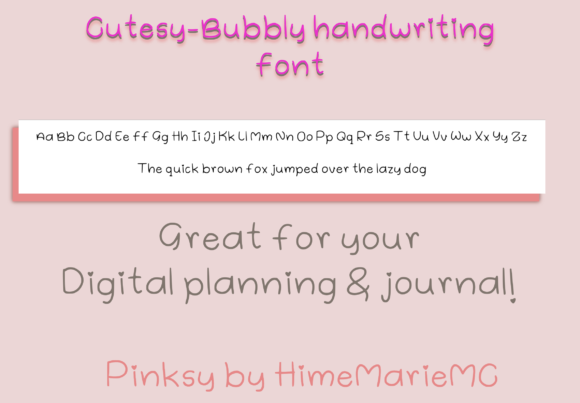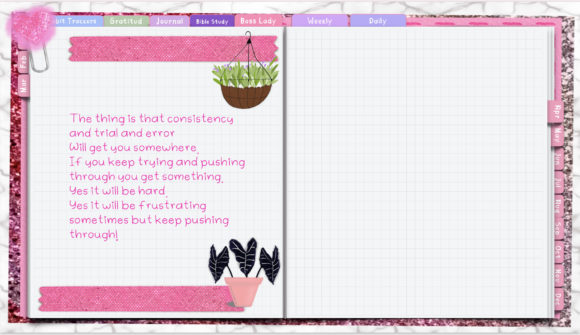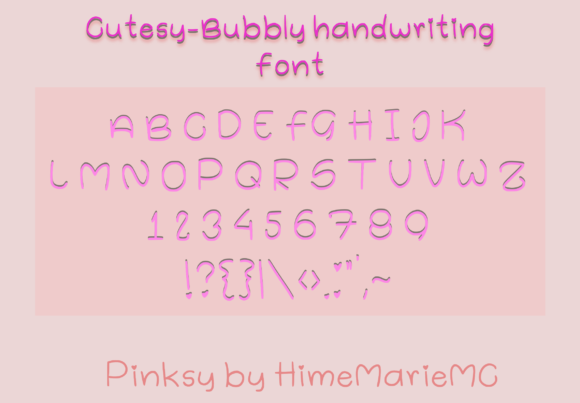
Cutesy Bubbly Font: Add a Touch of Whimsy to Your Designs
Are you looking for a font that can add a dash of fun and playfulness to your designs? Look no further than Cutesy Bubbly, a delightful handwritten font that’s perfect for creating eye-catching posters, flyers, and prints. With its sweet and stylish vibe, this font is sure to capture the attention of your audience and leave a lasting impression.
What is Cutesy Bubbly Font?
Cutesy Bubbly is a fun and modern handwritten font that’s designed to bring a touch of whimsy to your designs. Its unique and elegant style makes it perfect for a wide range of projects, from creative crafts to digital designs. Whether you’re a designer, crafter, or DIY enthusiast, this font is sure to inspire your creativity and help you create stunning visuals.
Key Features of Cutesy Bubbly Font
- Handwritten style: Cutesy Bubbly has a beautiful handwritten style that’s perfect for creating personal and unique designs.
- Sweet and stylish vibe: This font has a sweet and stylish vibe that’s sure to capture the attention of your audience.
- Perfect for posters and flyers: Cutesy Bubbly is ideal for creating eye-catching posters, flyers, and prints that will stand out from the crowd.
- Endless possibilities: With Cutesy Bubbly, the possibilities are endless. Use it for your designs and explore its many uses.
Why Use Cutesy Bubbly Font?
There are many reasons why you should consider using Cutesy Bubbly font in your designs. Here are just a few:
- Add a touch of whimsy: Cutesy Bubbly is the perfect font for adding a touch of whimsy and playfulness to your designs.
- Stand out from the crowd: With its unique and elegant style, Cutesy Bubbly is sure to help your designs stand out from the crowd.
- Perfect for creative projects: This font is ideal for creative projects, such as crafting, DIY, and handmade designs.
Design Ideas Using Cutesy Bubbly Font
Cutesy Bubbly font is perfect for a wide range of design projects. Here are some ideas to get you started:
- Posters: Create eye-catching posters for events, promotions, or advertising.
- Flyers: Design flyers for parties, events, or business promotions.
- Prints: Create beautiful prints for art, crafts, or DIY projects.
- Crafting projects: Use Cutesy Bubbly font for crafting projects, such as card making, scrapbooking, or journaling.
| Font Name | Cutesy Bubbly Font |
| Author | Pinksy by HimeMarieMC |
Cutesy Bubbly font is a fun and modern handwritten font that’s perfect for adding a touch of whimsy to your designs. With its sweet and stylish vibe, this font is sure to capture the attention of your audience and leave a lasting impression. Whether you’re a designer, crafter, or DIY enthusiast, Cutesy Bubbly font is a great addition to your font collection.
- What is Cutesy Bubbly font?
- Cutesy Bubbly font is a fun and modern handwritten font that’s perfect for adding a touch of whimsy to your designs.